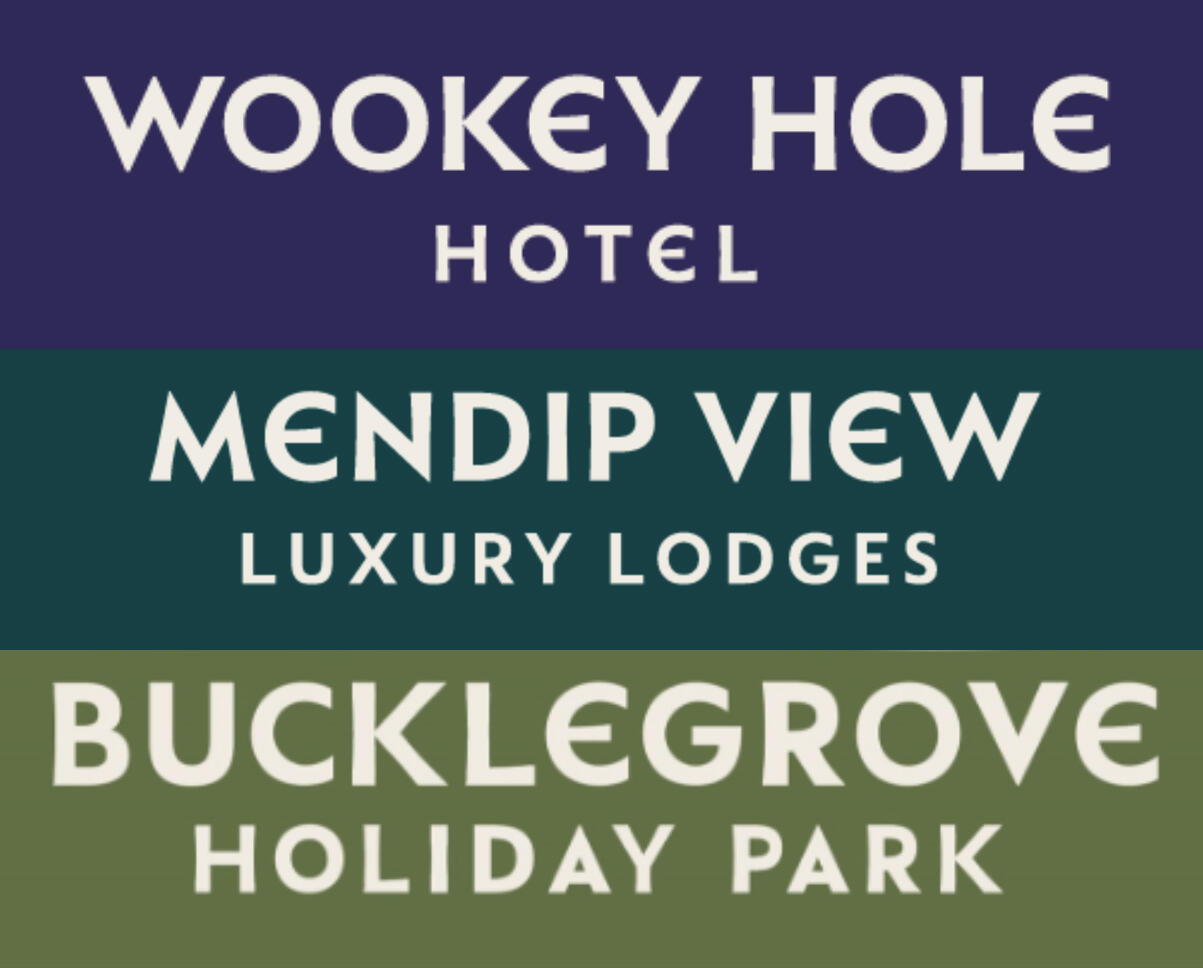
Wookey Hole Font
I'm trying to identify this font and I'd really appreciate any help. It's a font used for attractions in Somerset, UK (e.g Wookey Hole)
I'm wondering if it could be a common font, but perhaps the capital E (drawn like a C with a bar added) is simply a customisation for these logos? I did notice that there's one instance where the 'E' is different in the word 'LODGES' (though I think that whole line may be a different font?).
I'm making a slideshow for a family holiday to Somerset and I'd really like to use this font (or something similar) on the intertitles.